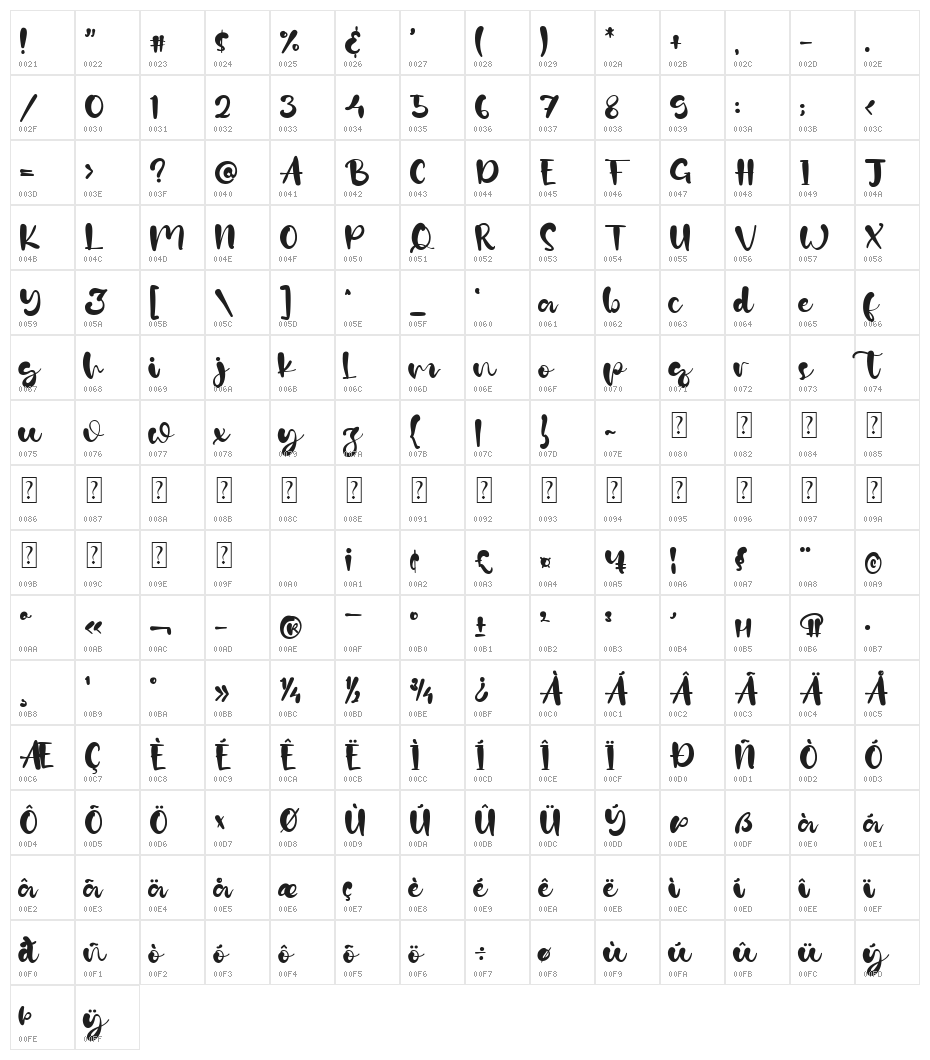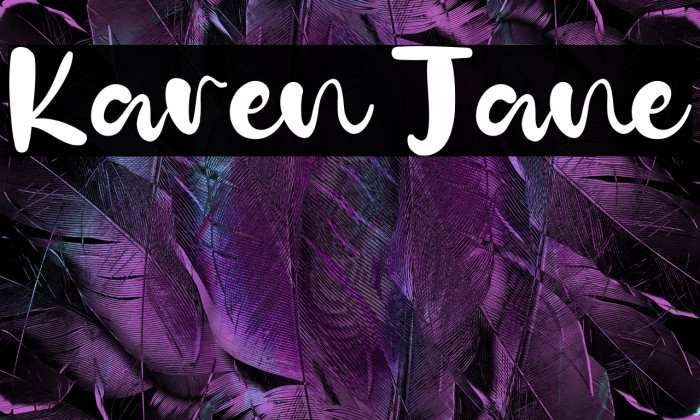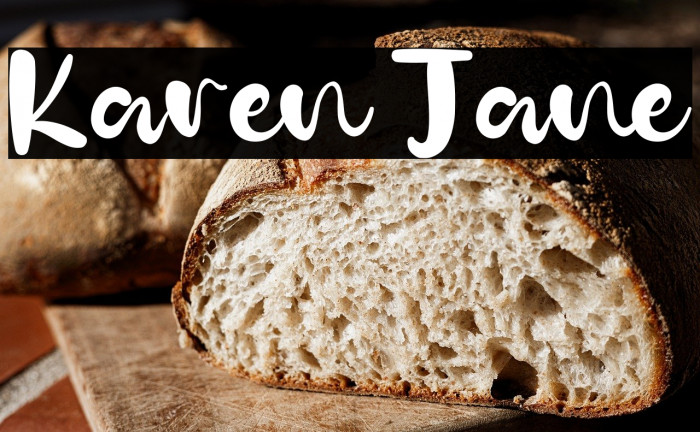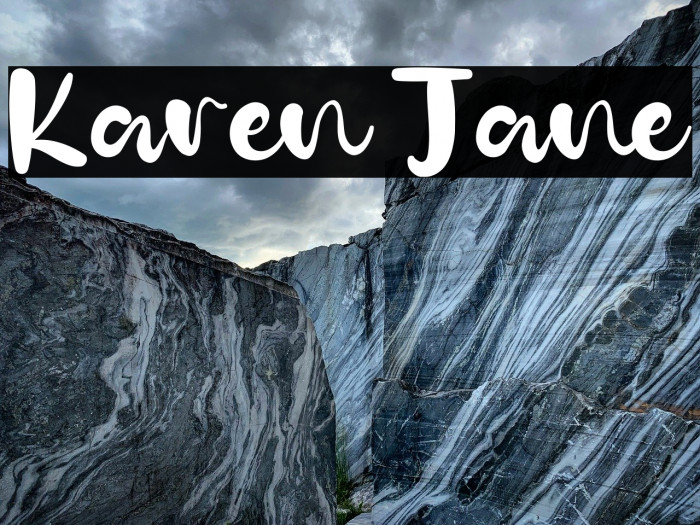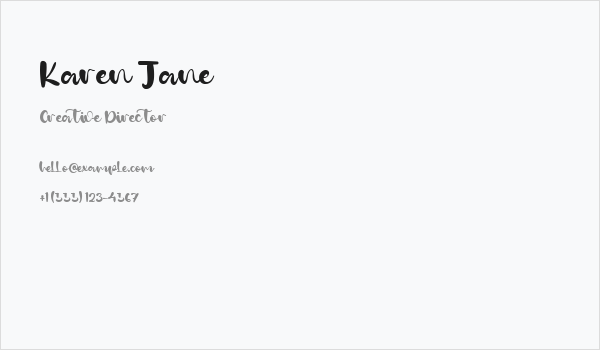
Karen Jane Font
Karen Jane Description
This font features a bold, playful script style with a handwritten feel. The characters are rounded and fluid, giving a sense of movement and energy. The uppercase letters are slightly more structured, while the lowercase letters have a more casual, flowing appearance. The numbers and special characters maintain the same lively aesthetic, making the font versatile for various creative projects. The strokes are thick and consistent, providing a strong visual impact. This font is ideal for designs that require a personal touch or a fun, informal vibe.
| Overall Style | Playful, Handwritten |
| Proposed Projects | Great for greeting cards, invitations, logos, and playful branding. |